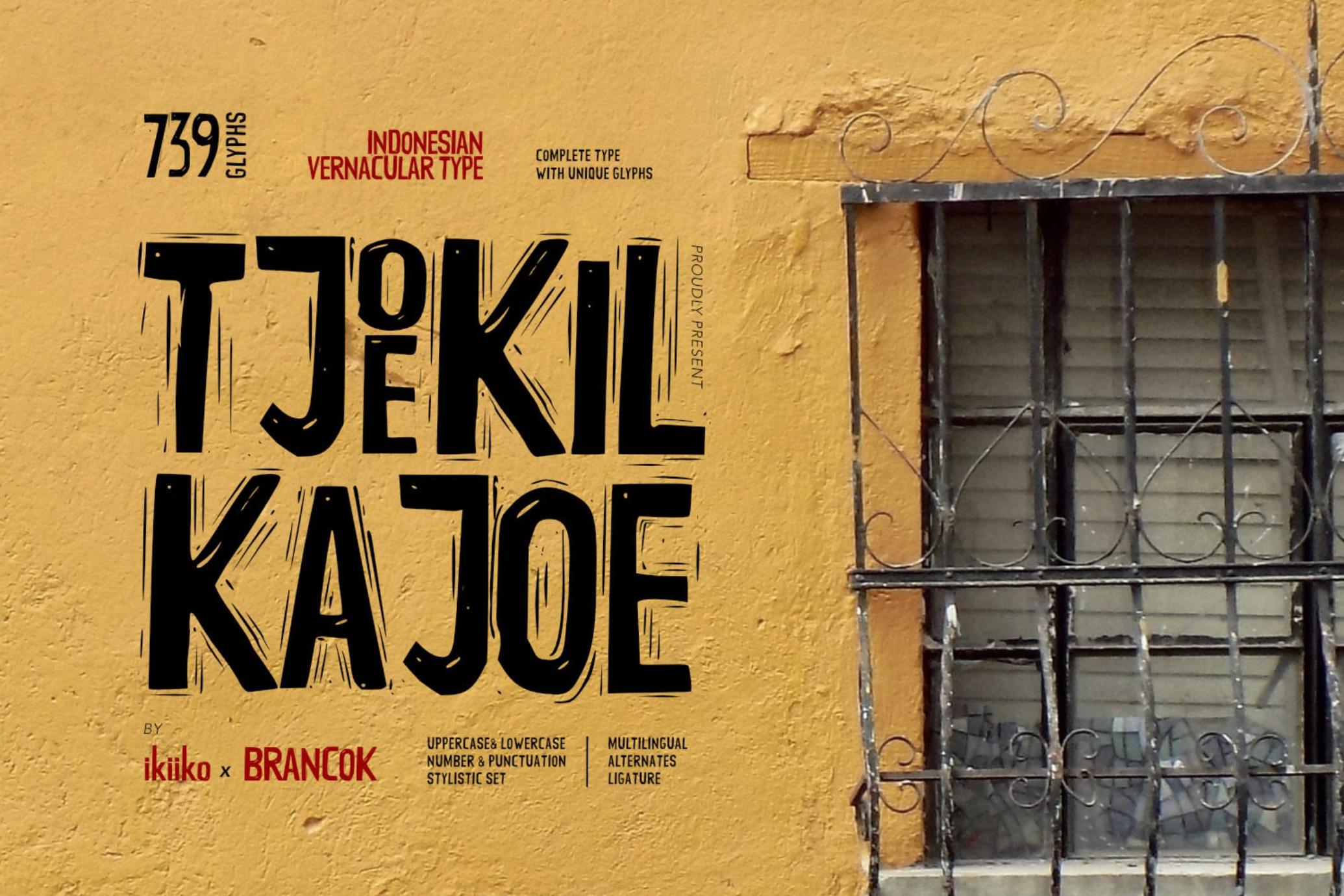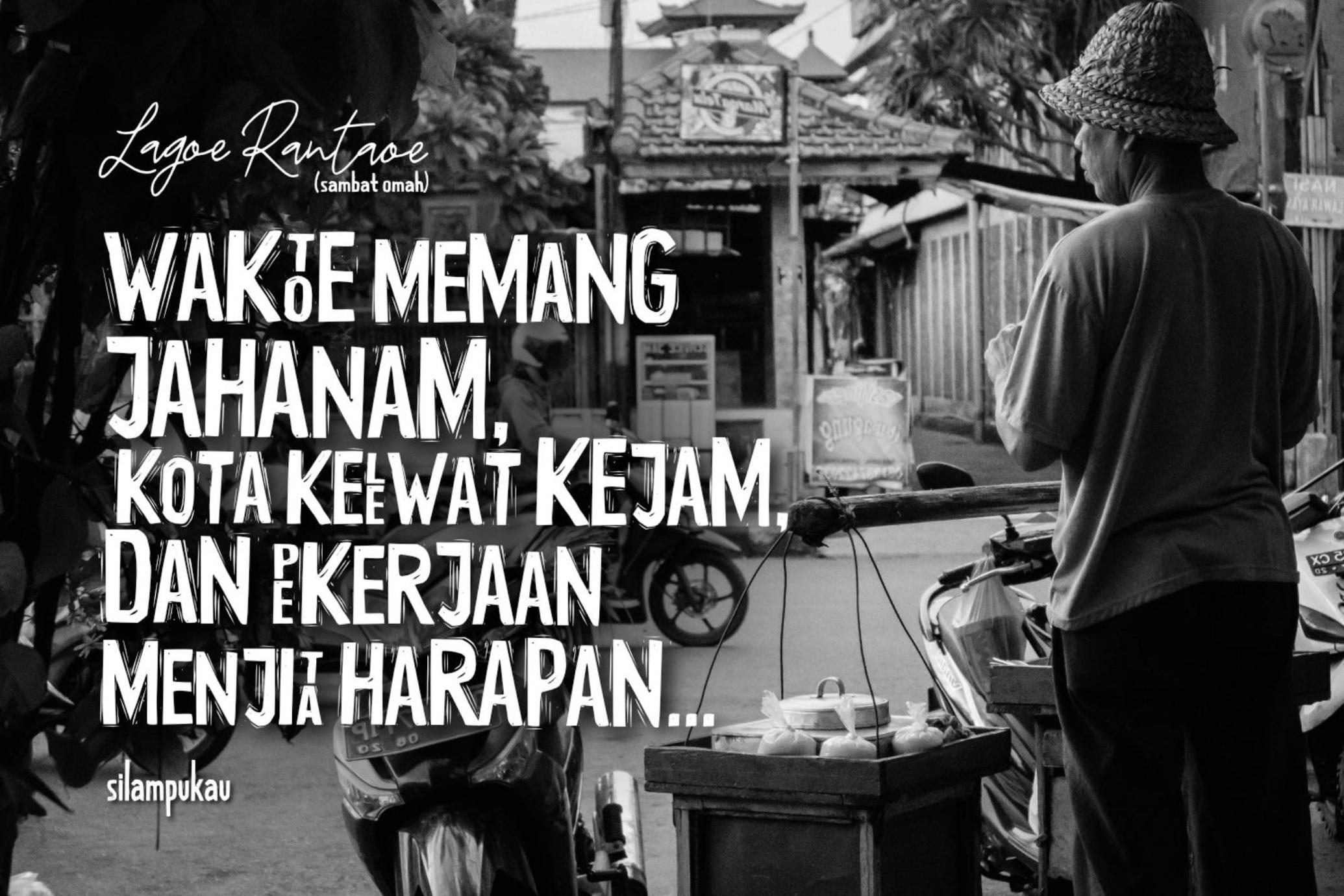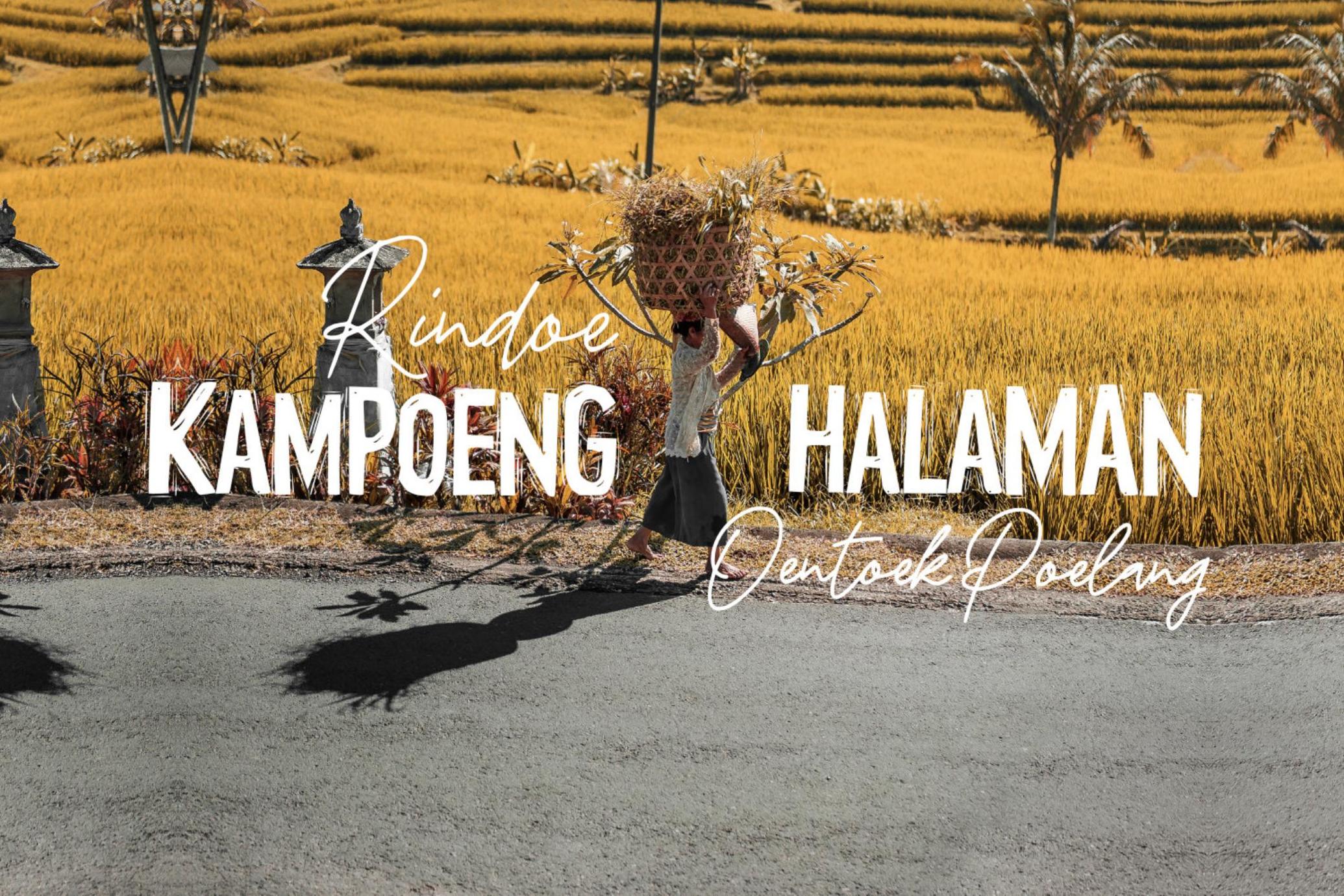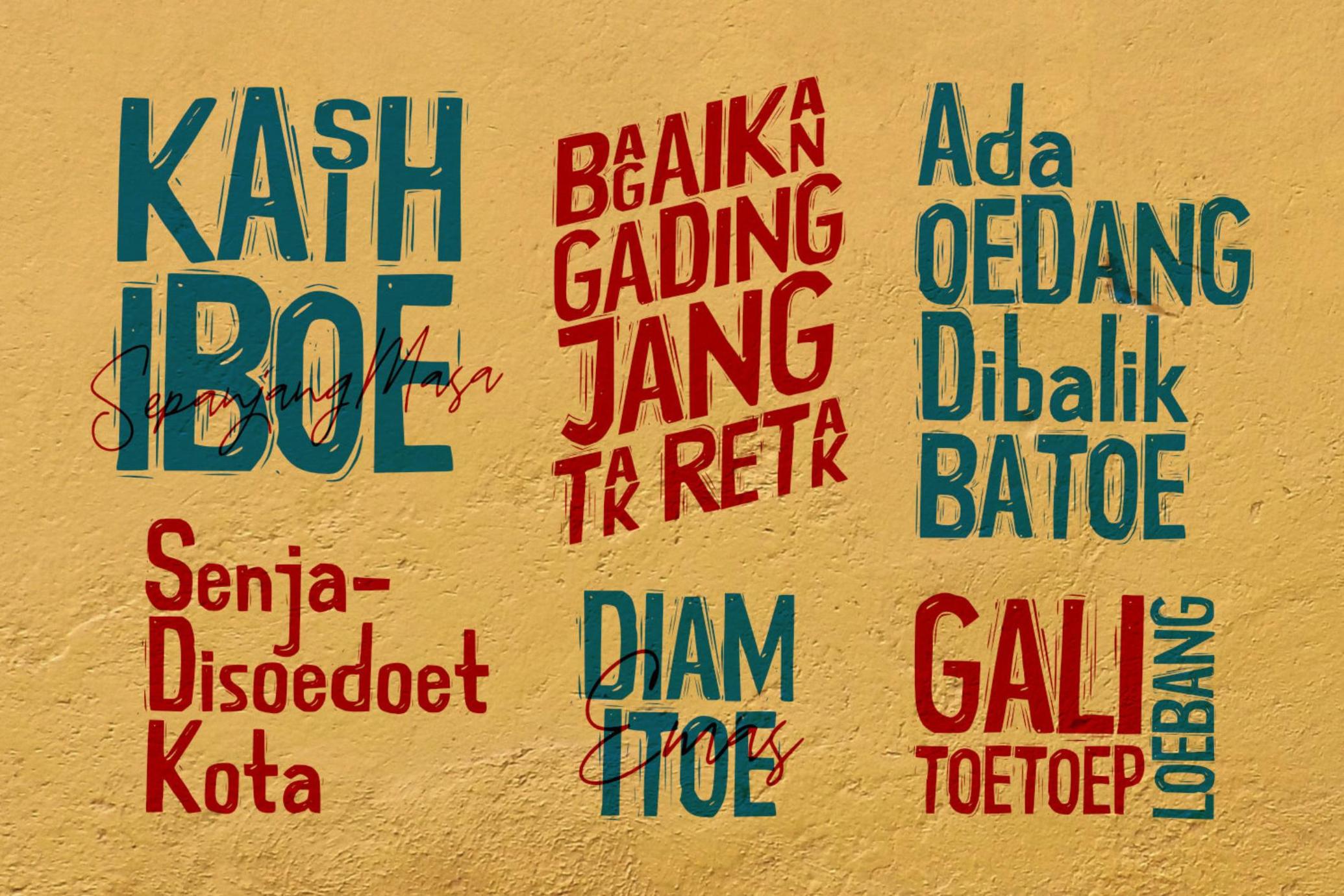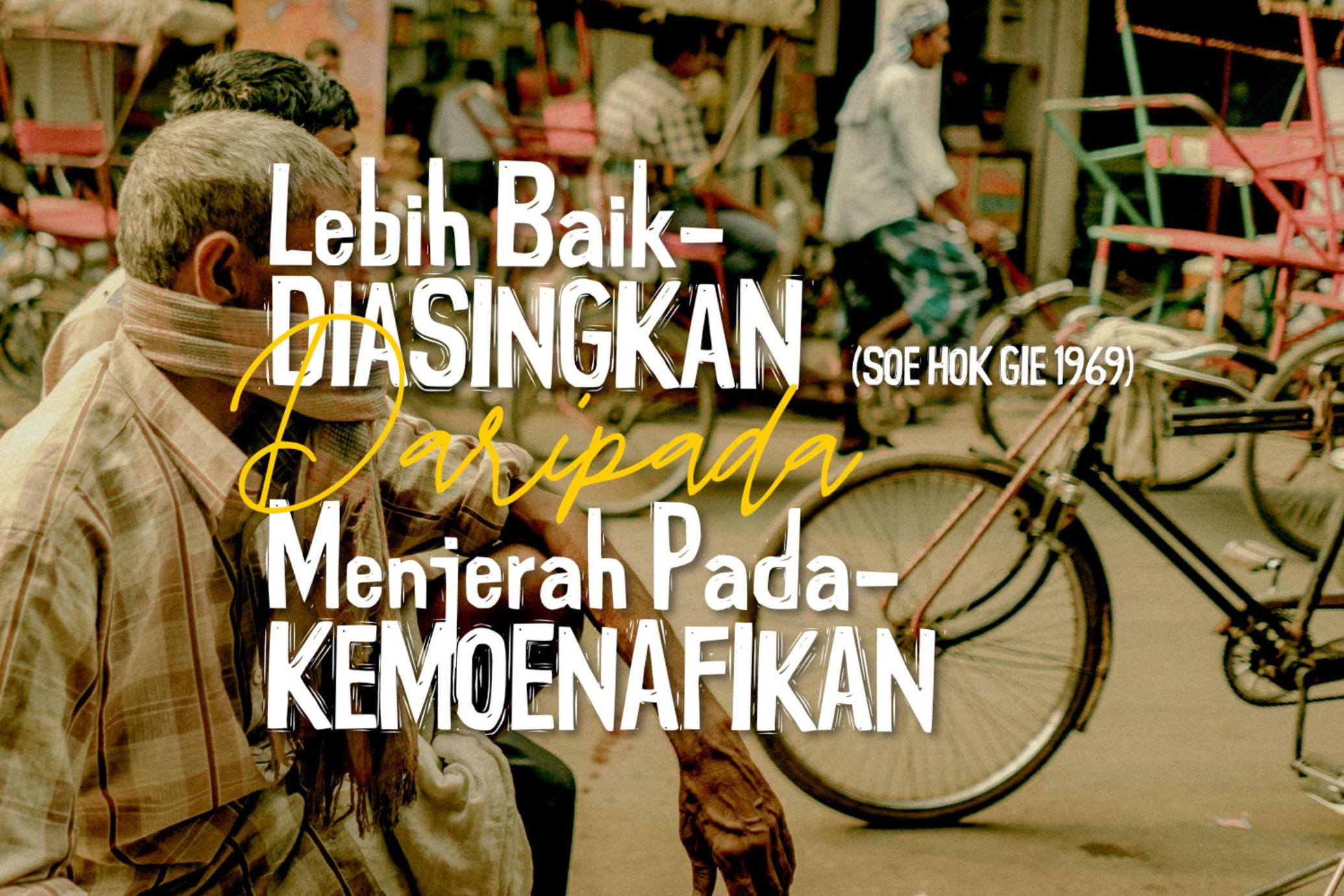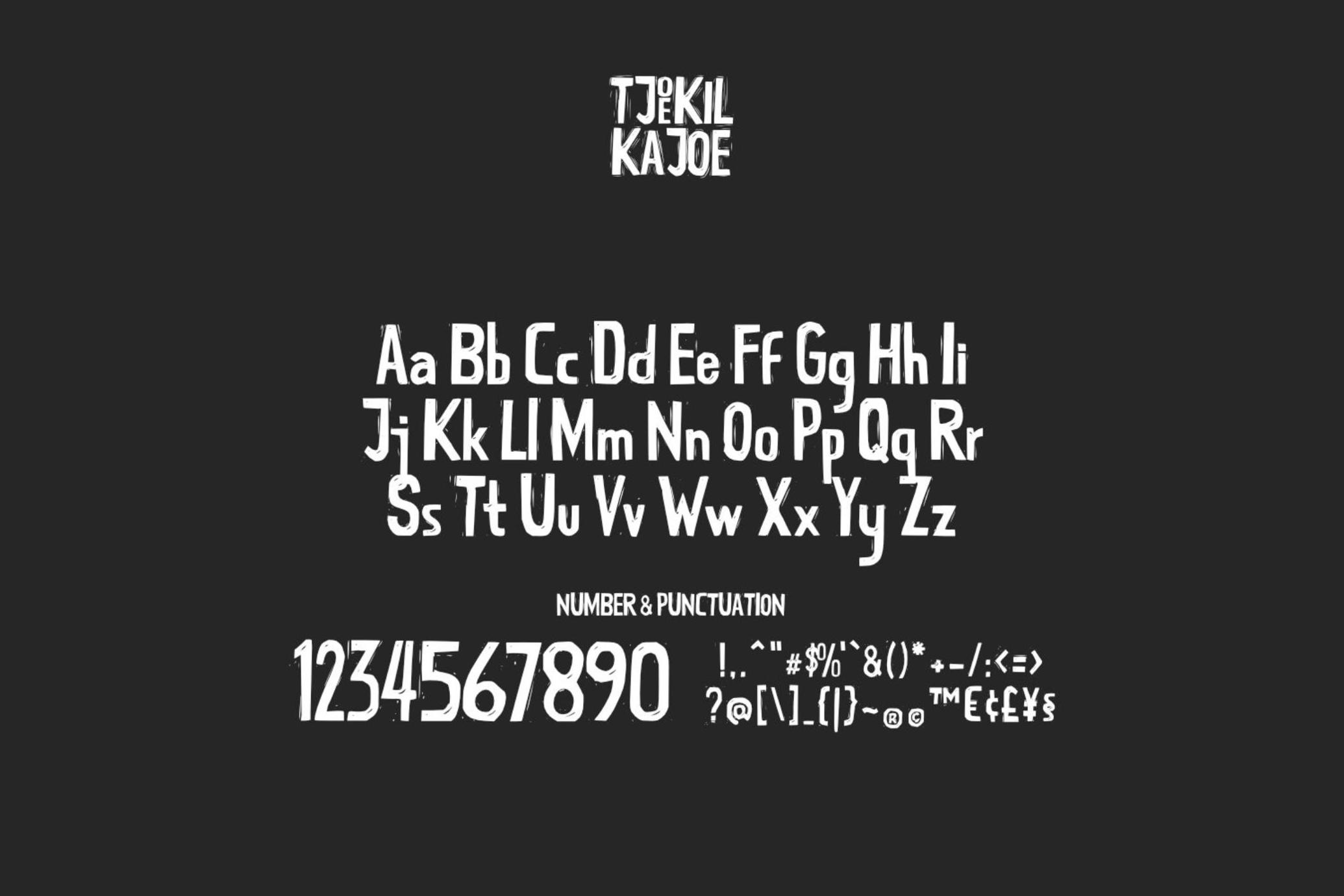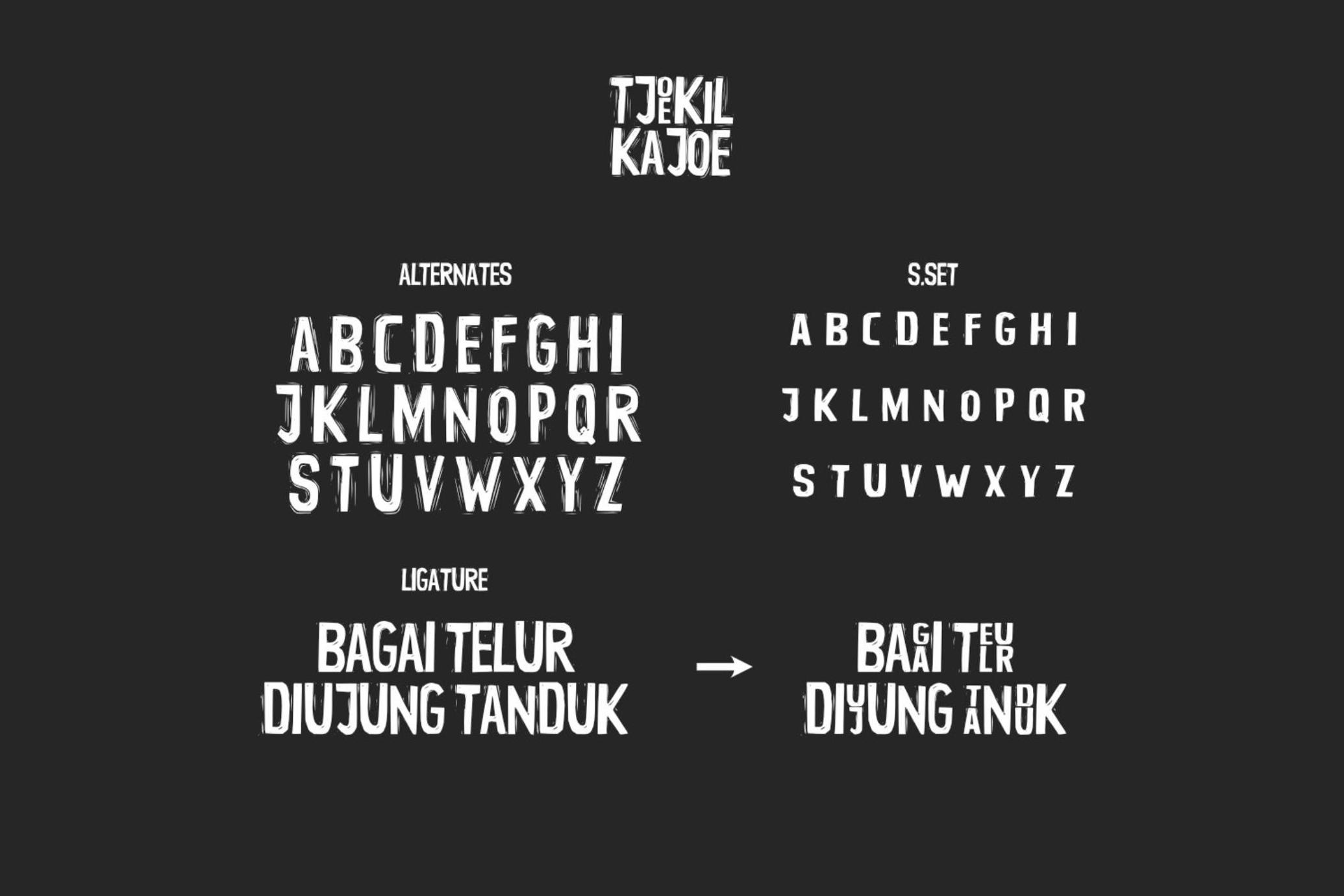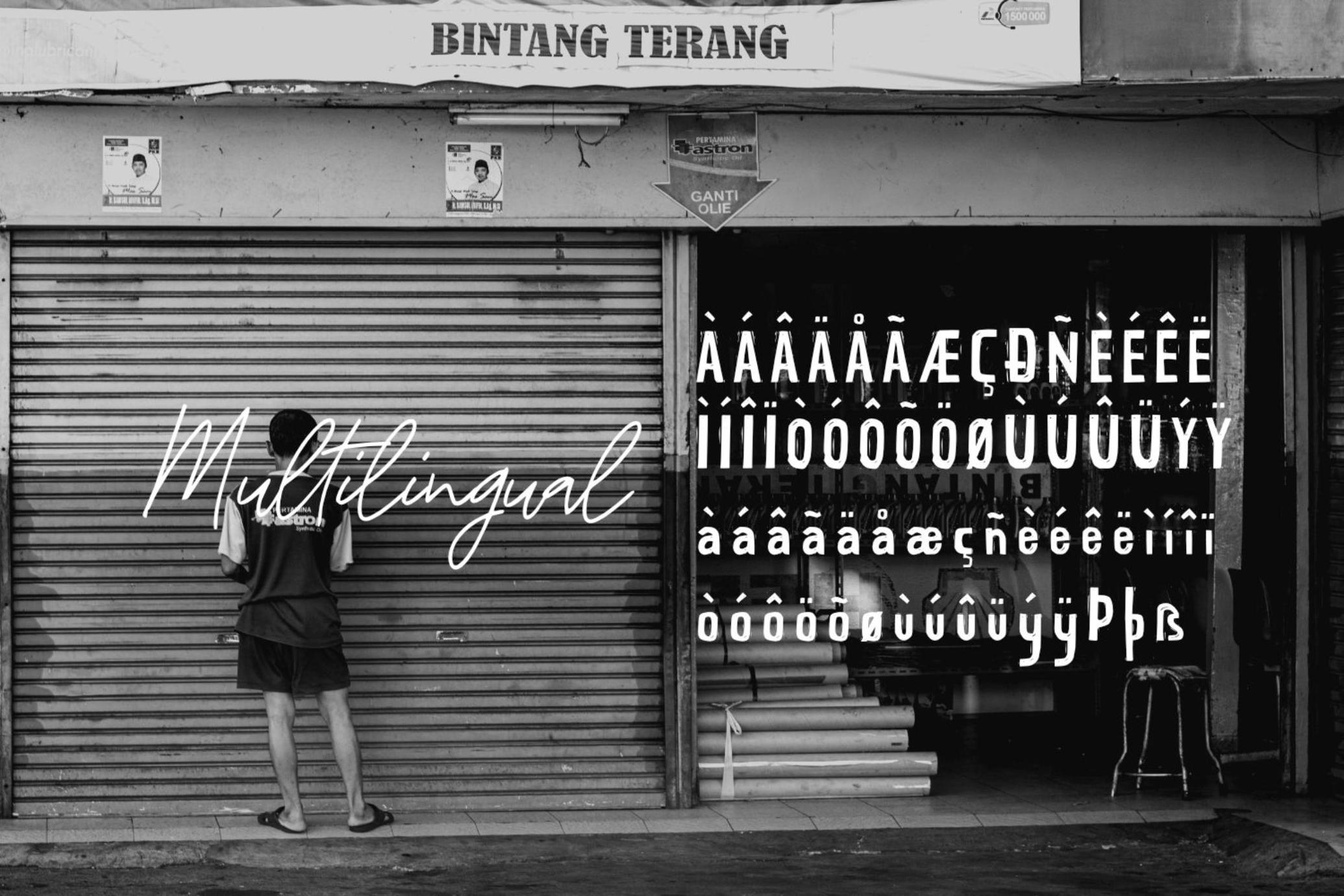
Tjoekil Kajoe - Vernacular Font
TjoekilKajoe
Tjoekil Kajoe is a linocut typography shape adapted to indonesian vernacular culture with many decorative glyphs. You can play with sizes, alternatives and styles to get the style of typographic character just the way you want it. This typeface is perfect for an vintage poster, vintage product, linocut design, books cover, packaging design, magazine header, poster, quotes, and so much more.
- Number & Punctuation
- Alternates & Ligature
- Stylistic Set